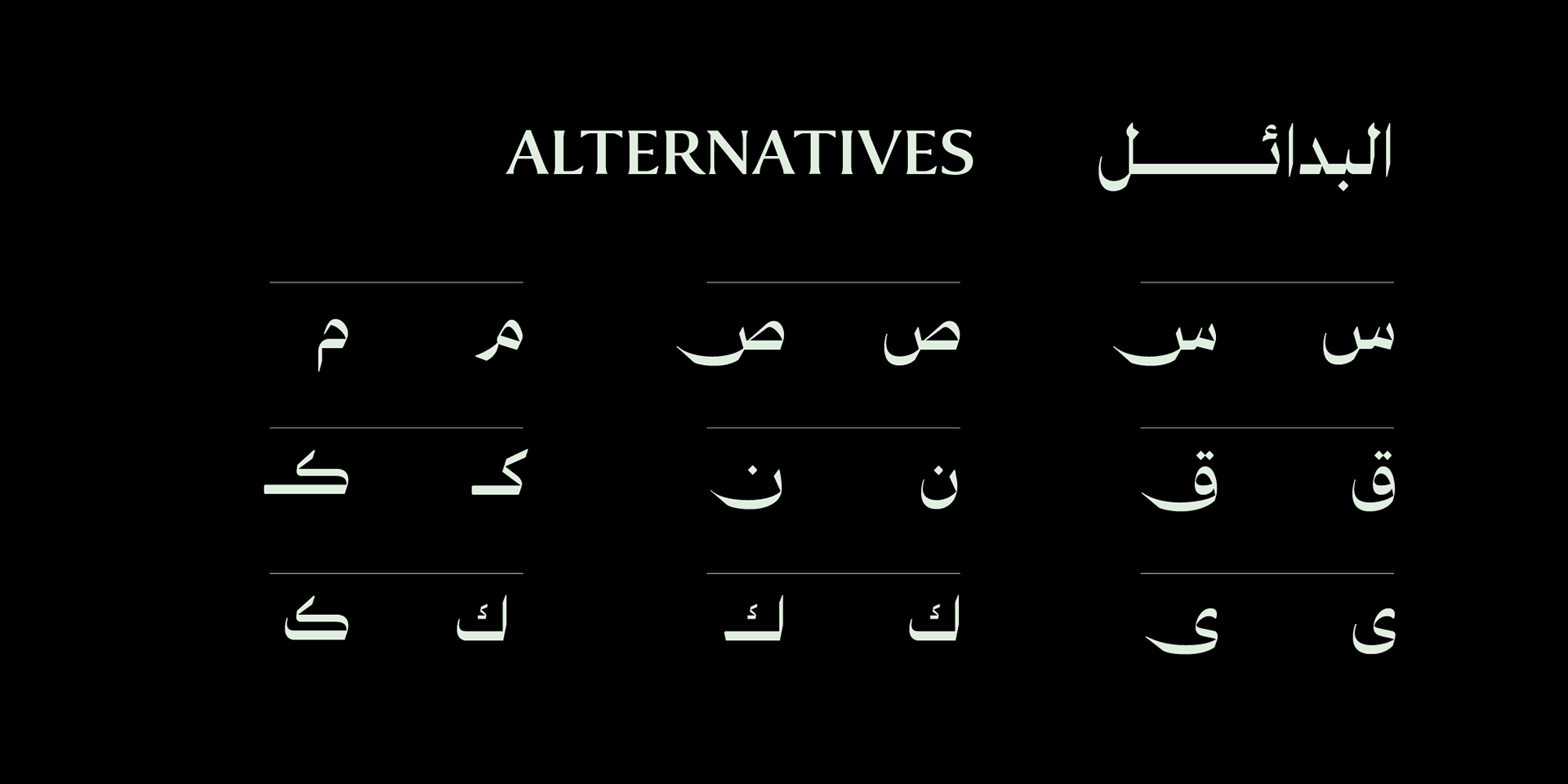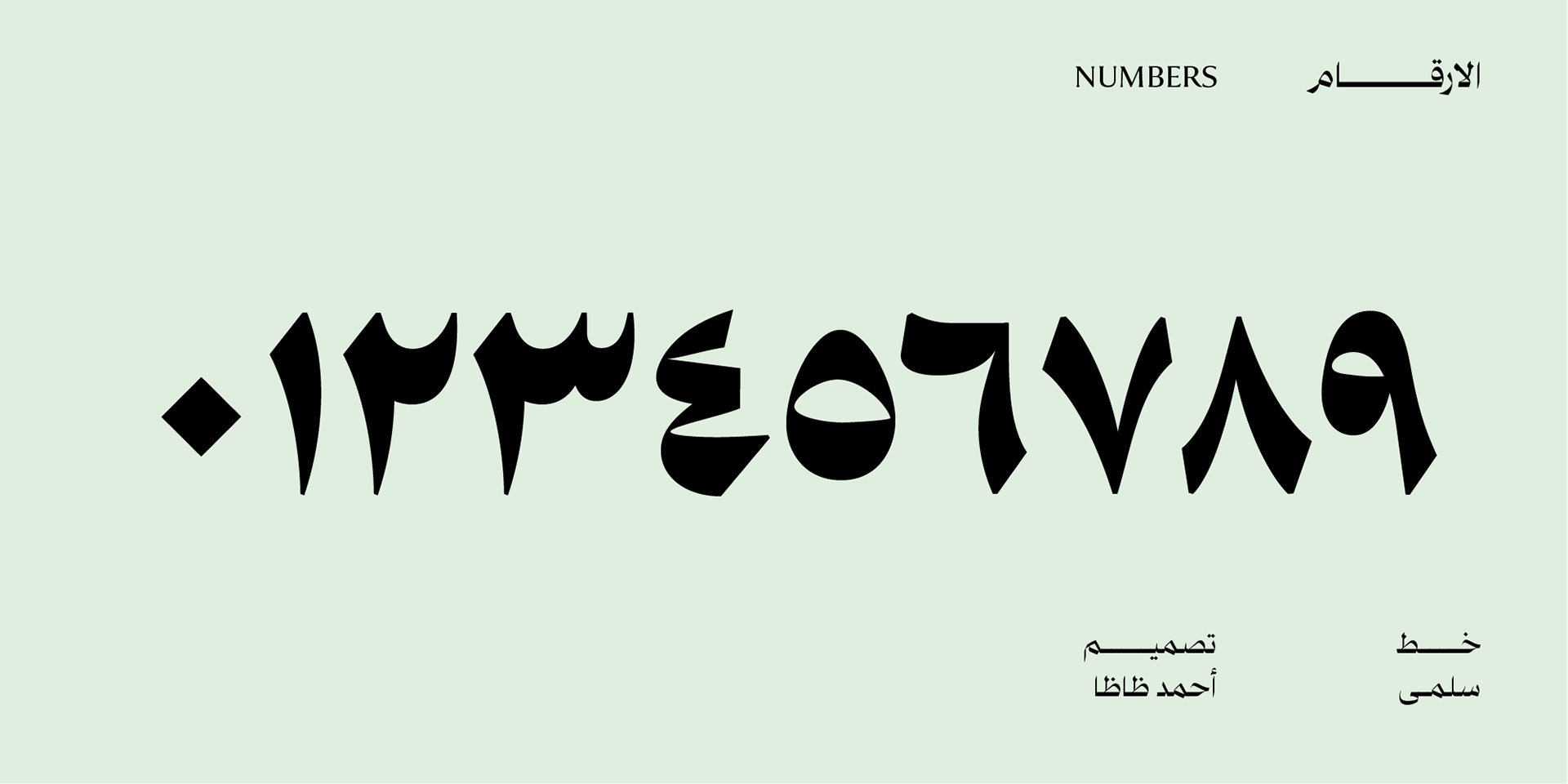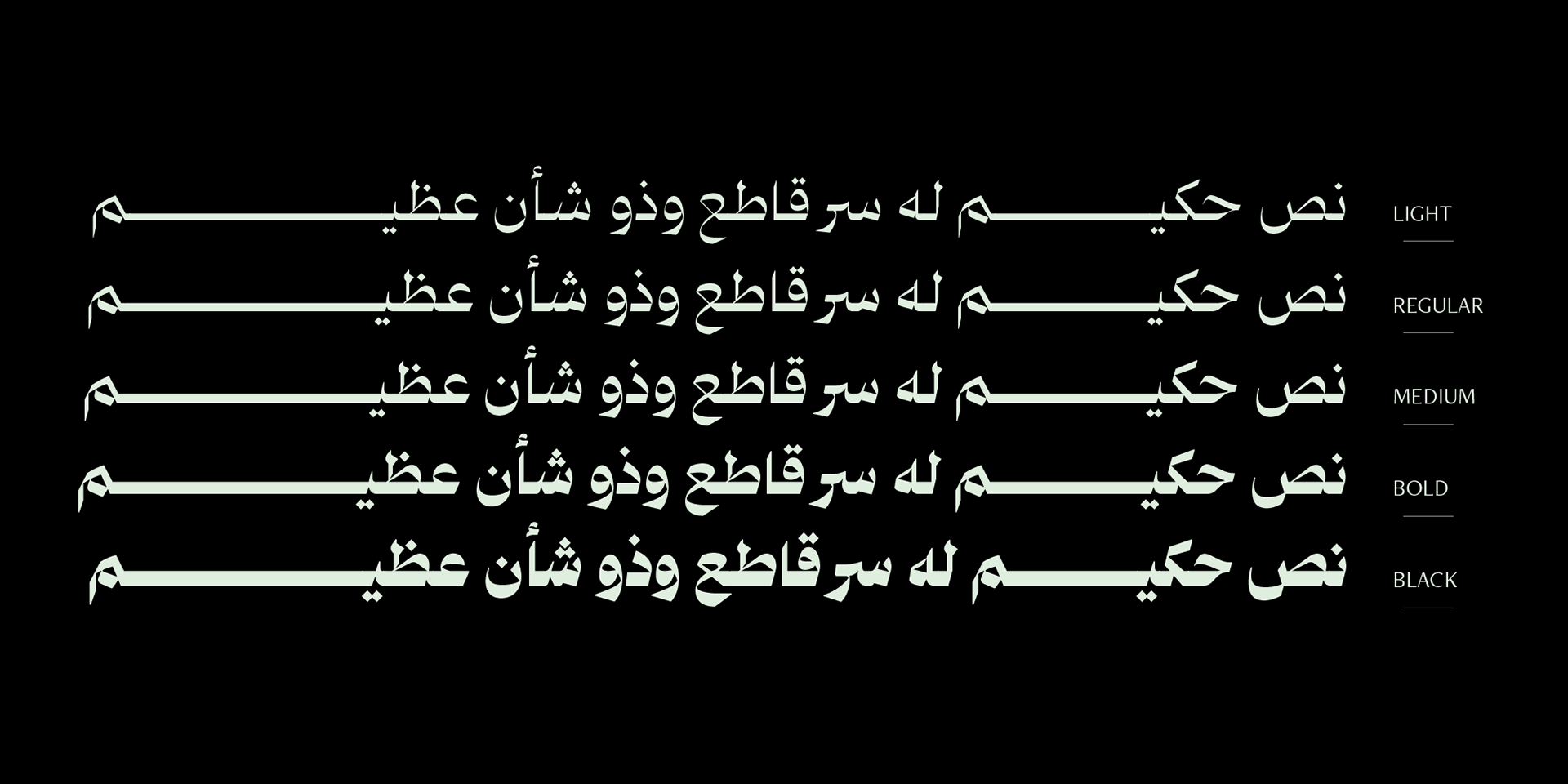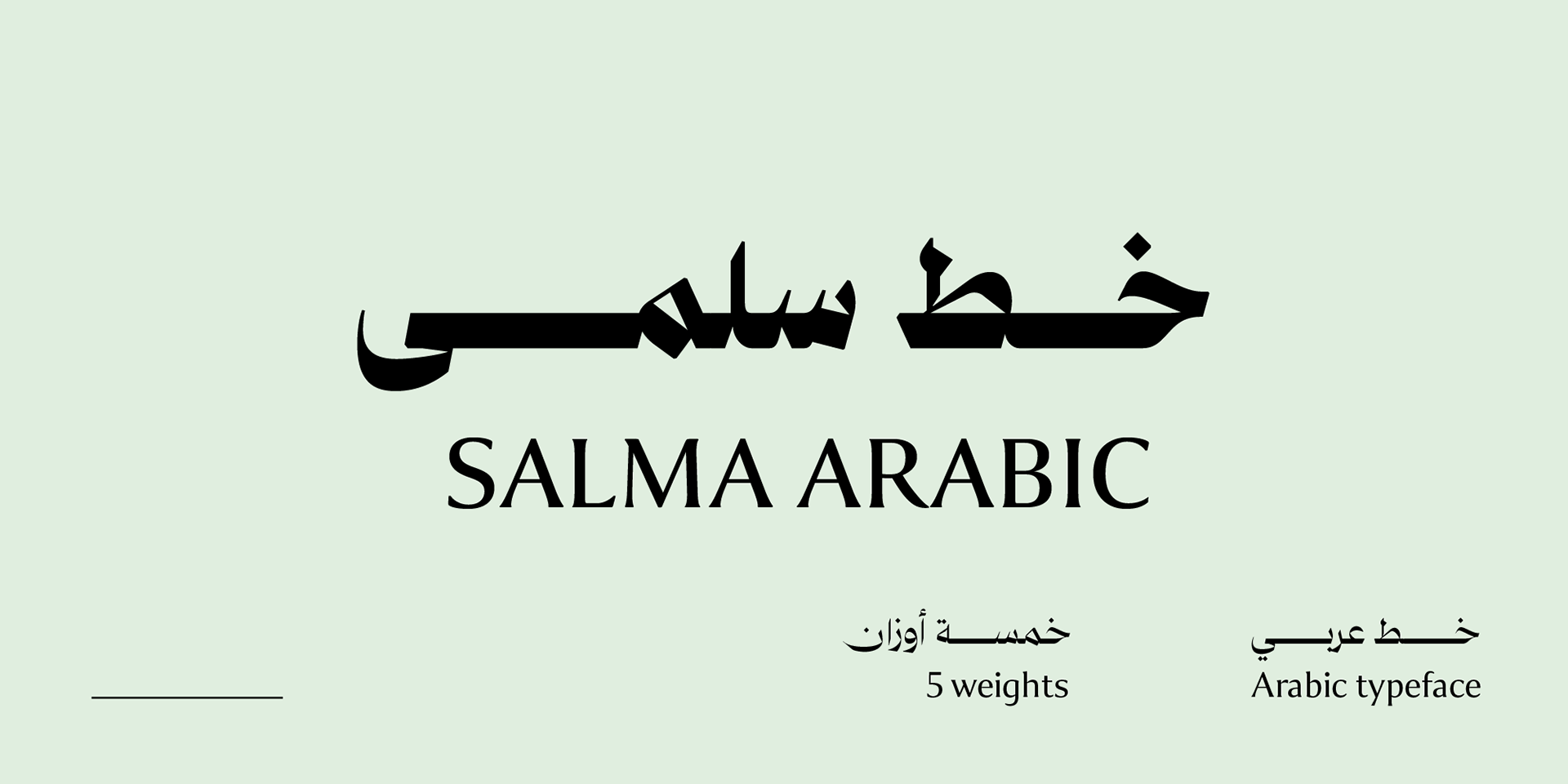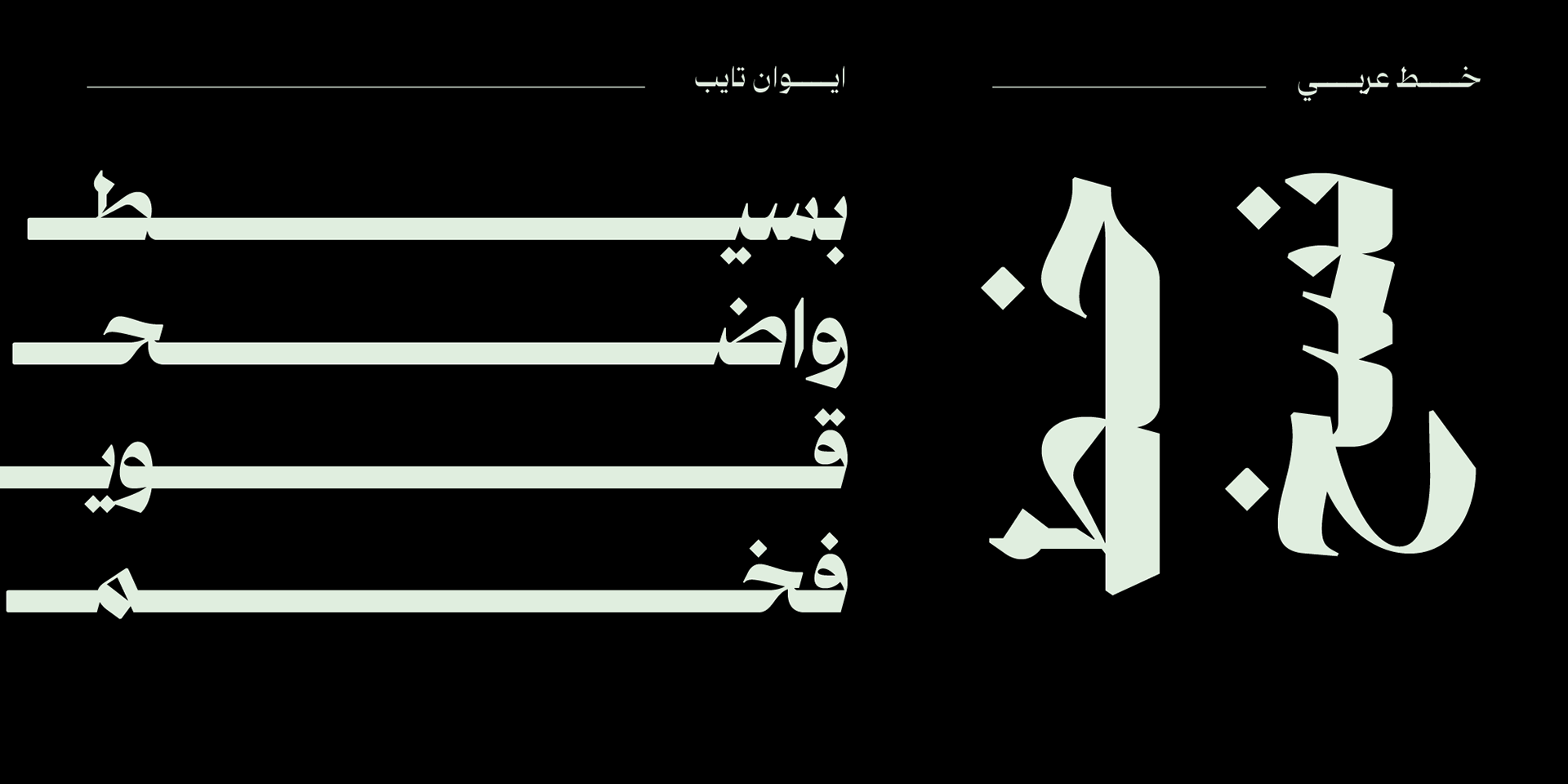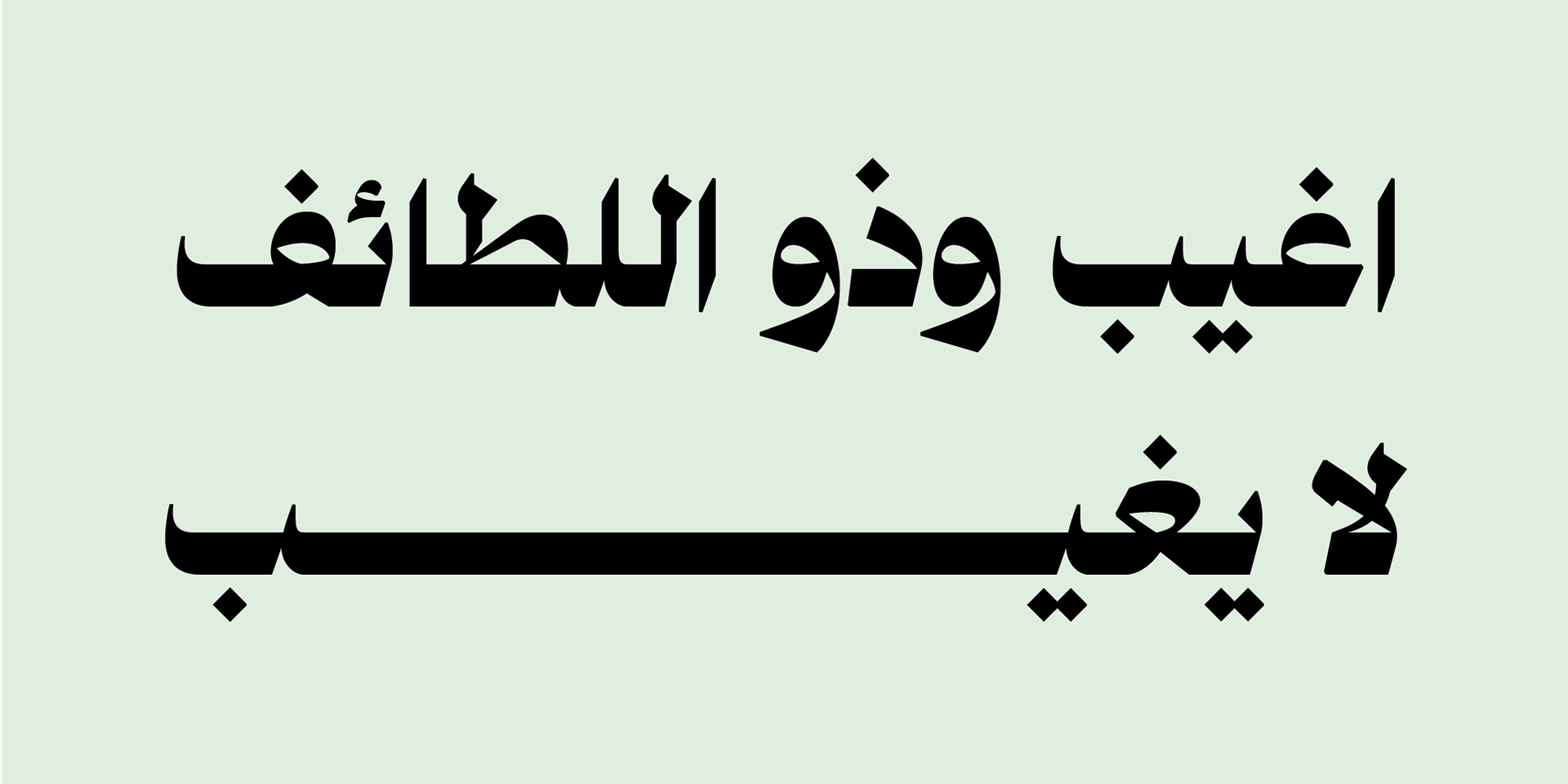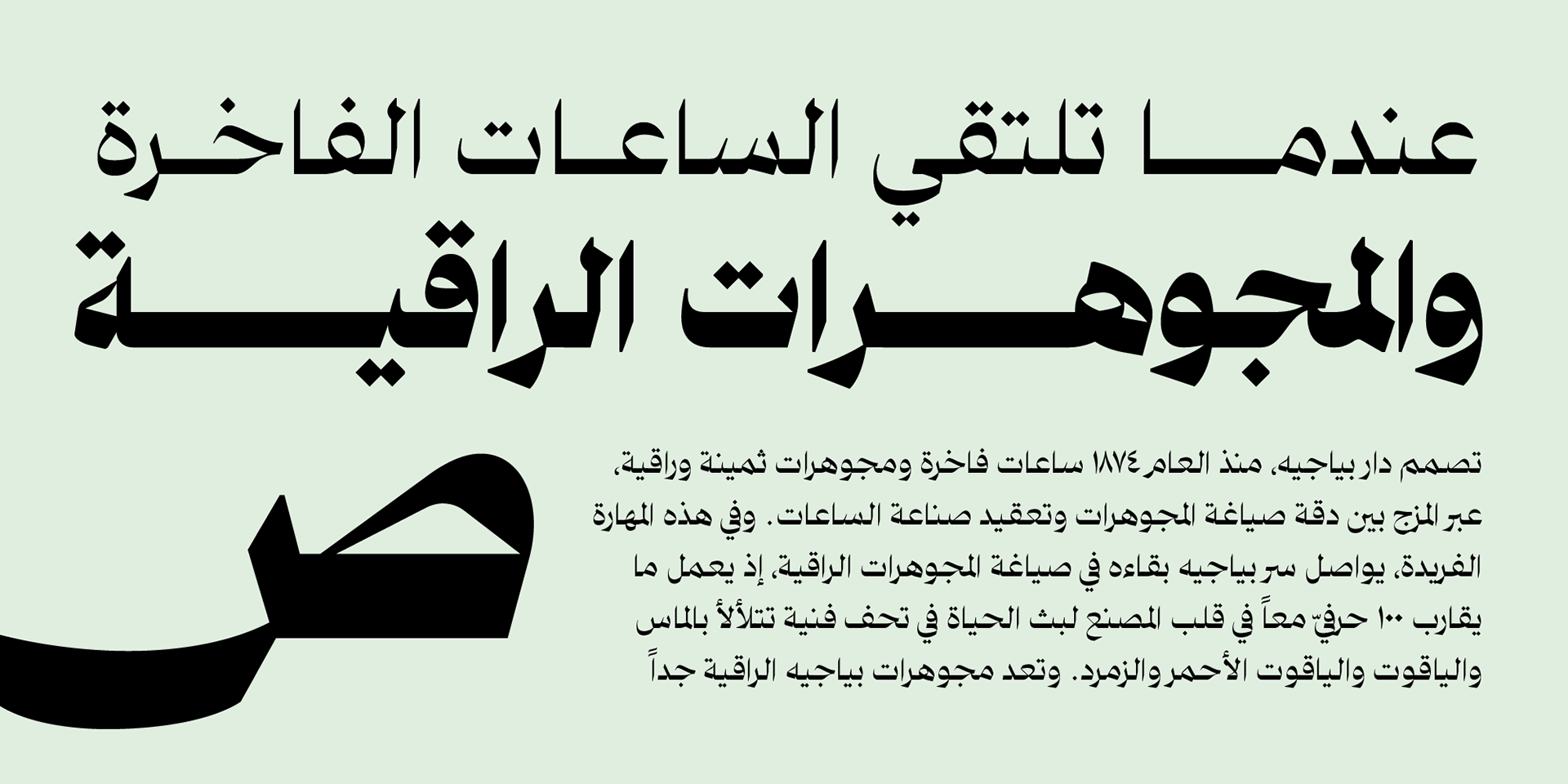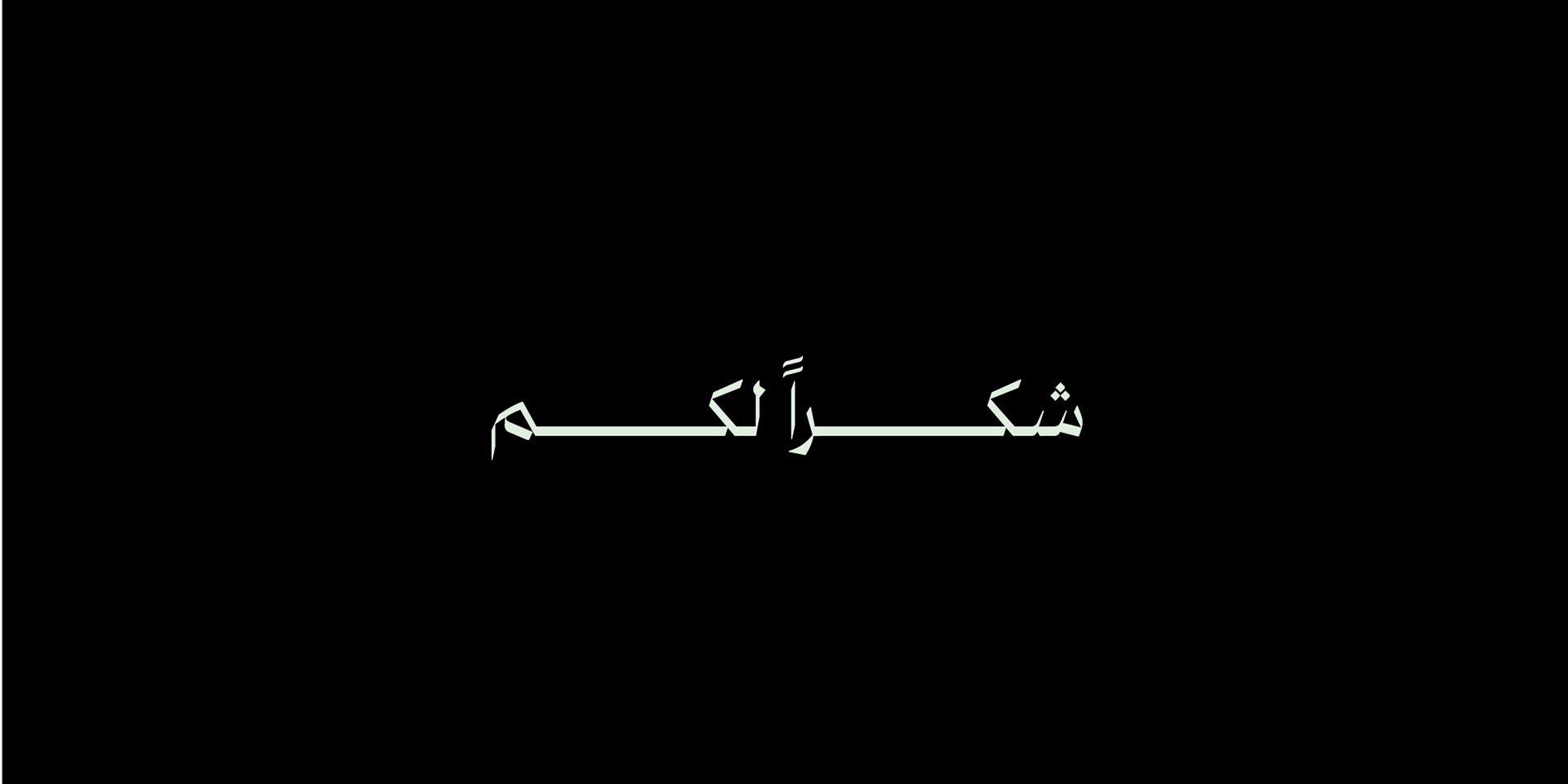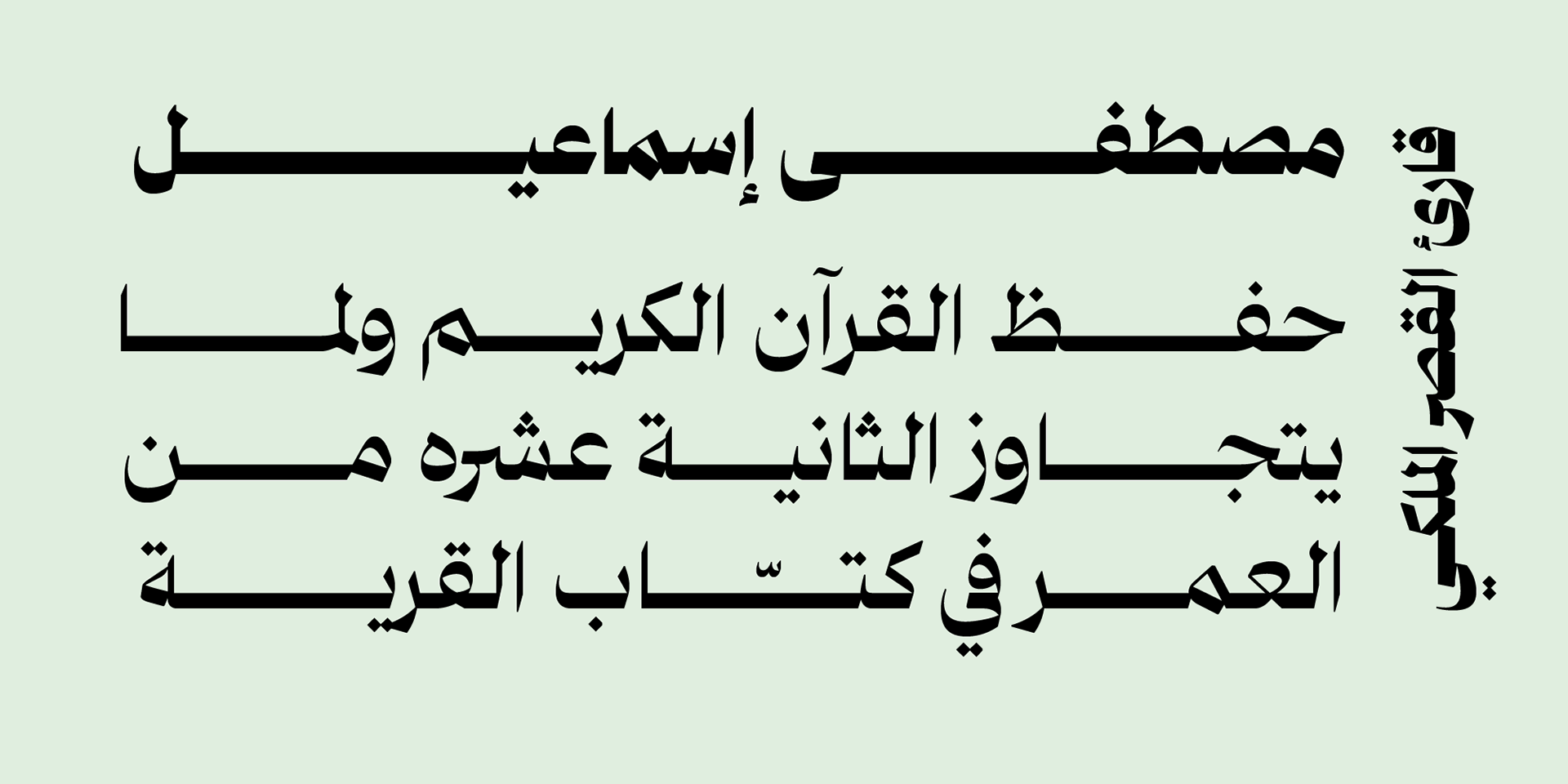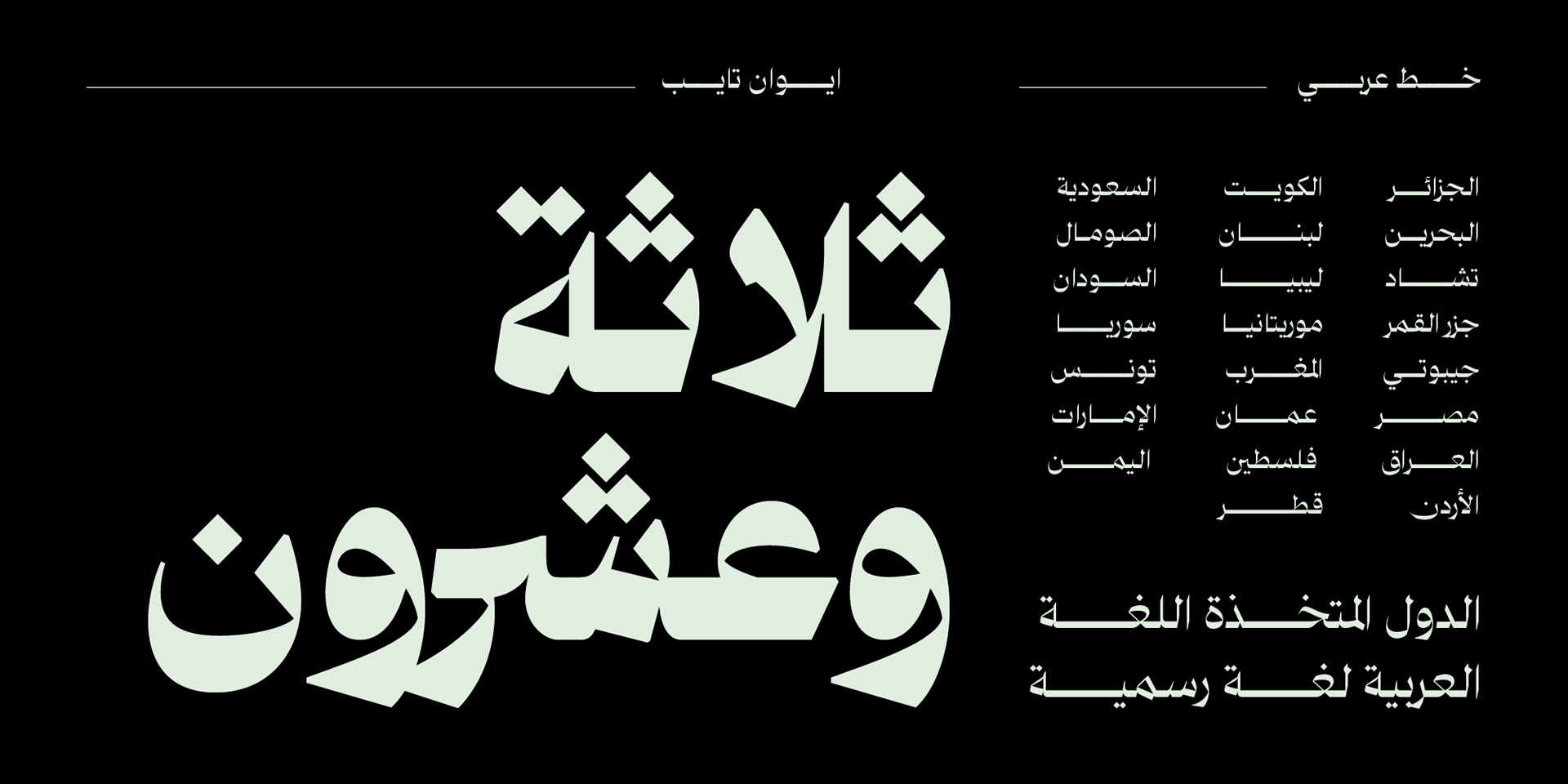
Salma Arabic typeface – خط سلمى ارابيك
Salma is a modern typeface inspired by the Naskh Mastry style. It stands out from traditional fonts with its high contrast and new connections between letters, creating an eye-catching aesthetic that will make any text stand out. Its bold lines and timele…